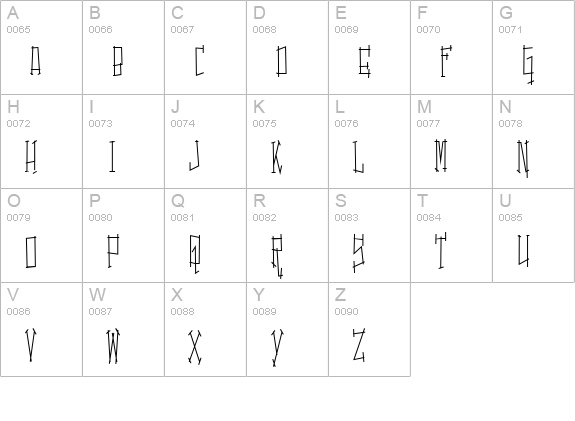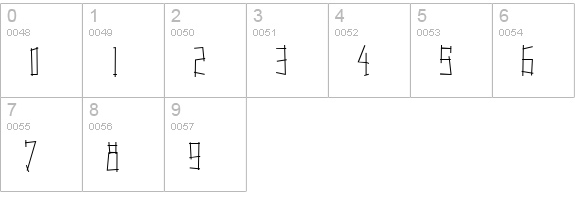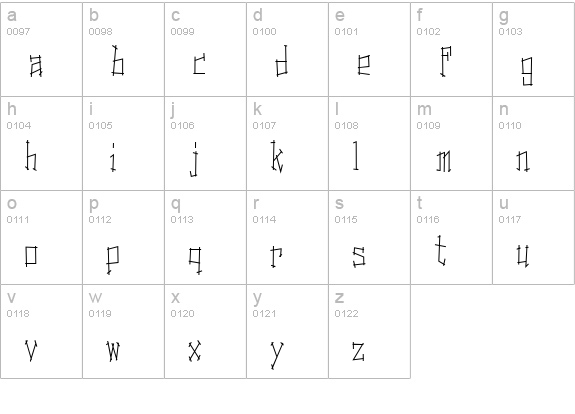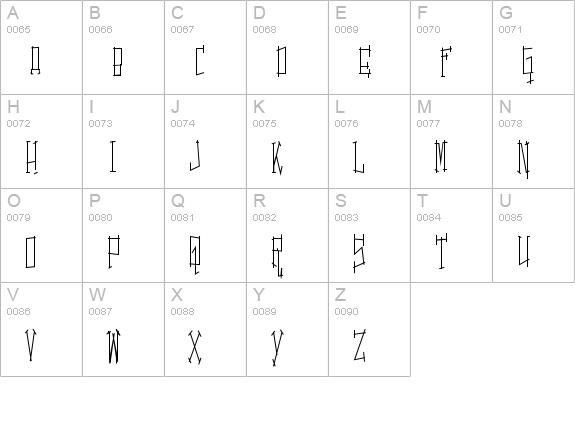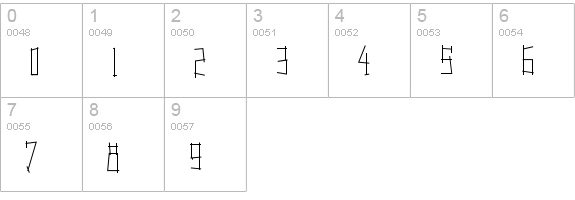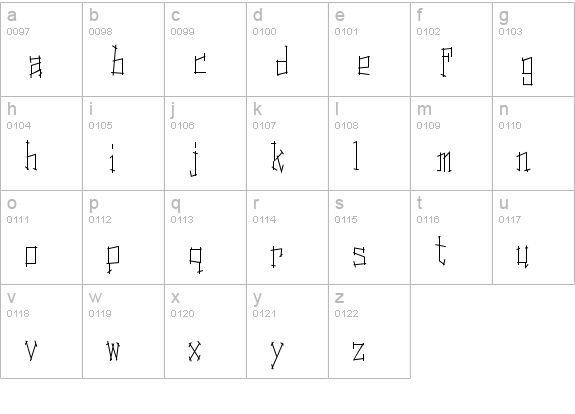
Switching and Effects Font Details
Switching and Effects font is a versatile and dynamic typeface that brings a modern and edgy feel to any design project. With its unique combination of sharp edges and flowing curves, this font is perfect for creating eye-catching headlines, posters, and branding materials. The Switching and Effects font comes with a variety of swashes, ligatures, and alternate characters that allow you to customize your text and add extra flair to your designs. Whether you're looking to create a bold and striking look or a more playful and whimsical style, this font has you covered. Best of all, Switching and Effects font is completely free to download at FontsMarket.com. Now you can access this stylish and versatile font without breaking the bank. Don't miss out on the opportunity to elevate your design projects with the Switching and Effects font today!